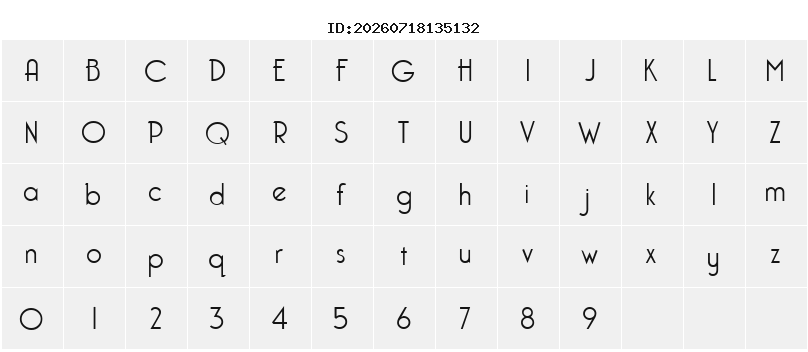
Capone Light Preview
• Font Name: Capone Light
• Full Font Name: Capone Light
About Capone Light.ttf
Capone Light.ttf is a modern, elegant sans-serif font designed for ultimate readability and visual harmony. Perfect for branding, headlines, web design, and print materials.